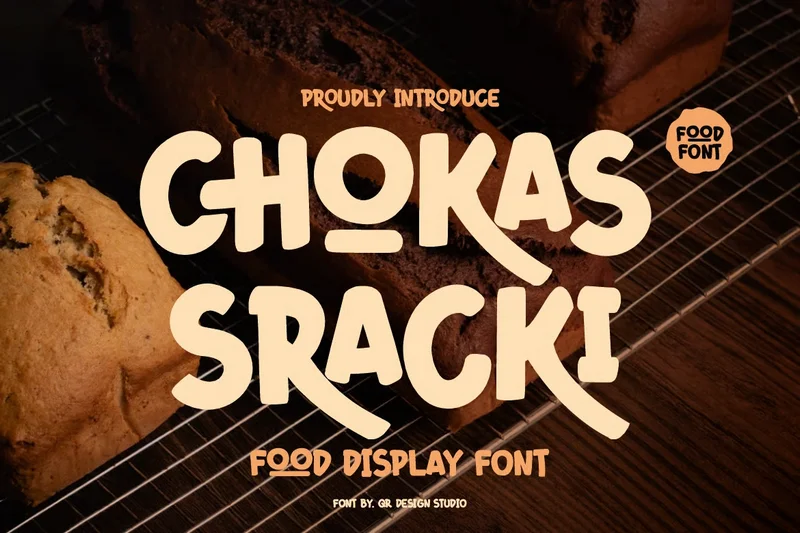
Chokas Sracki – Food Font
Chokas Sracki Font is a bold and authentic display font. The font is suitable for any branding project like poster, logo, food, and many more. Outstanding in a wide range of contexts.